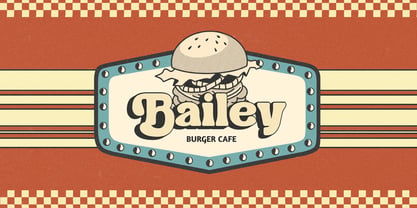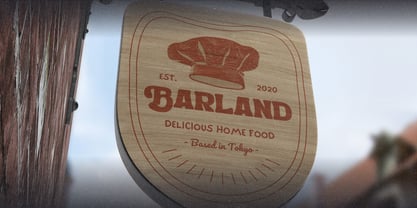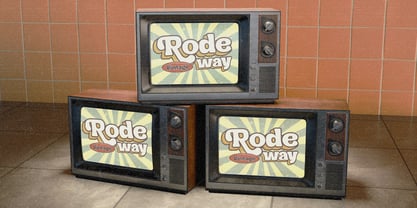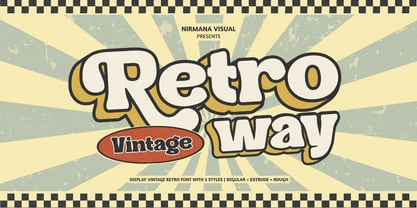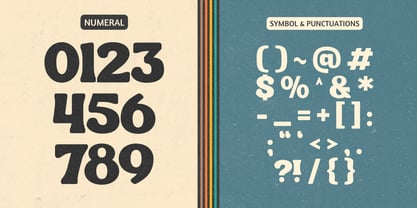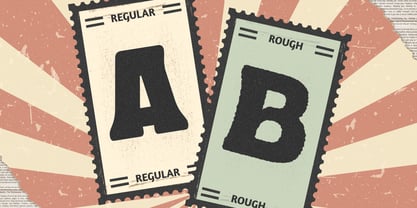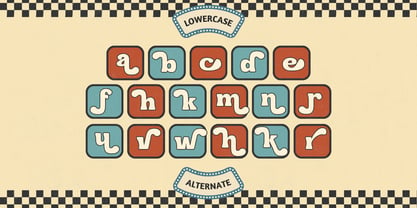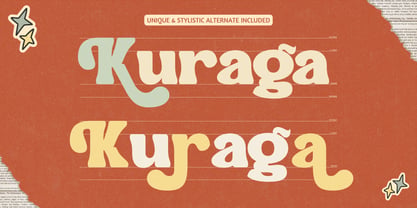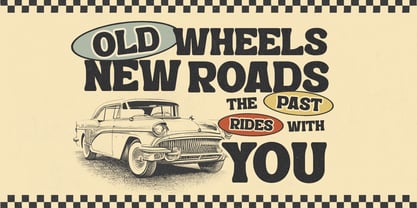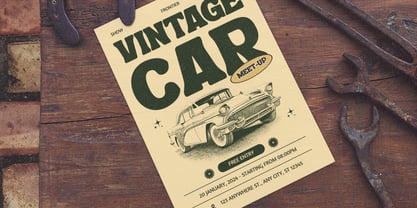
Retro Way
by Nirmana Visual
The Retro Way Font Family was designed by Sigit Dwipa and published by Nirmana Visual. Retro Way contains 3 styles and family package options. More about this family
Retro Way is a nostalgic vintage font inspired by classic sign painting and retro lettering styles. With its bold extrude and rough texture, it brings an authentic handcrafted feel to your designs. Perfect for logos, branding, posters, and signage that aim to capture the charm of old-school aesthetics. Retro Way combines strong vintage character with timeless appeal, making every word stand out with a touch of retro elegance and personality.
Designers: Sigit Dwipa
Foundry: Nirmana Visual